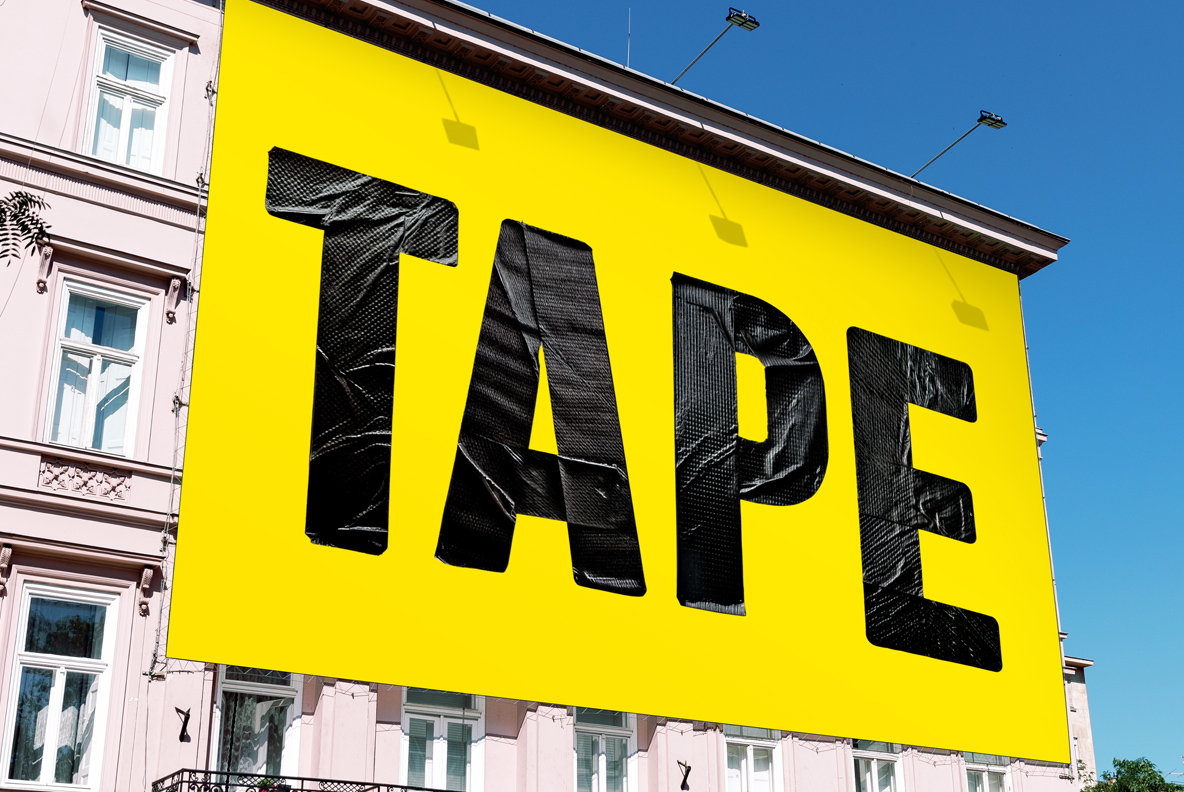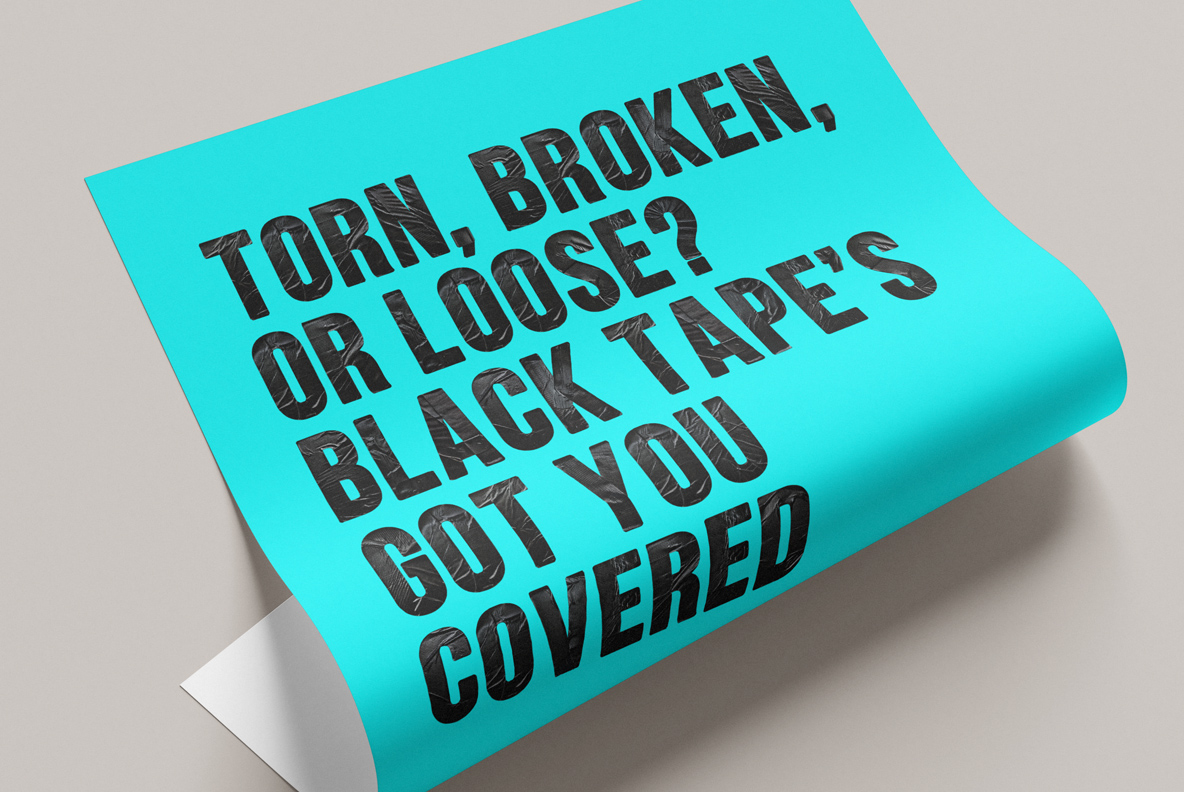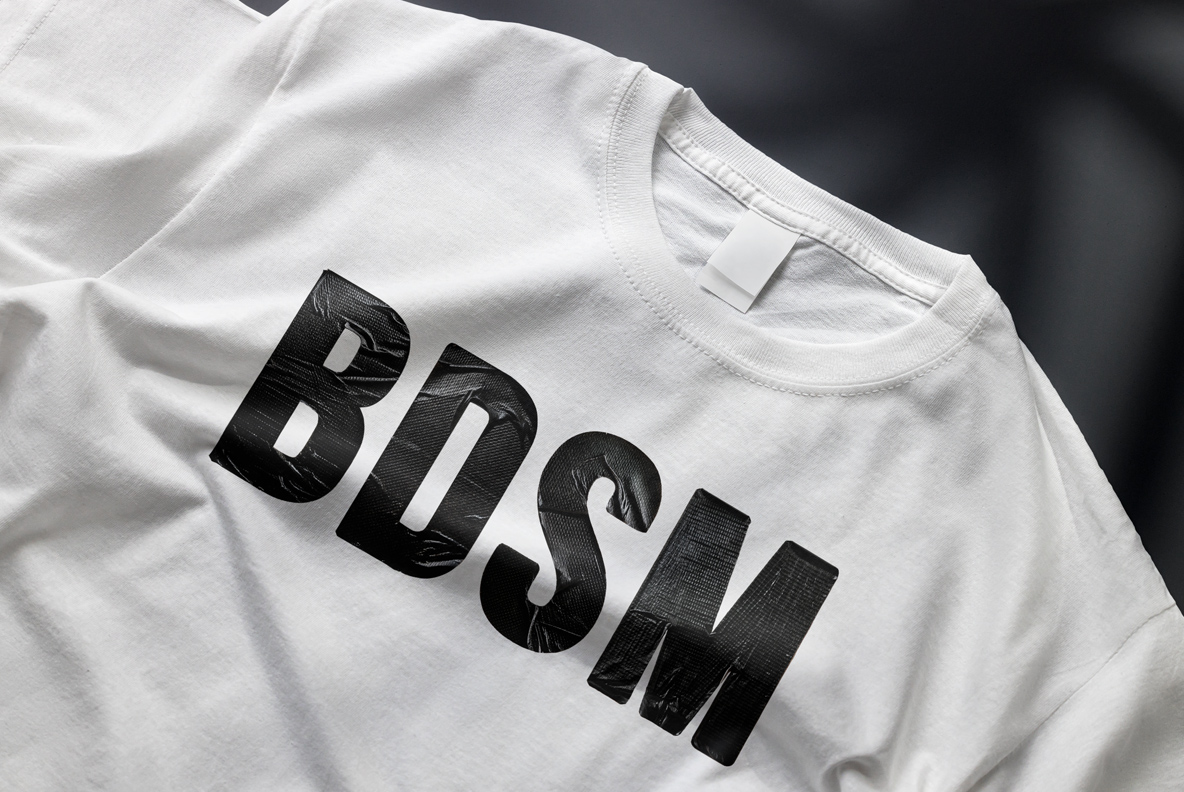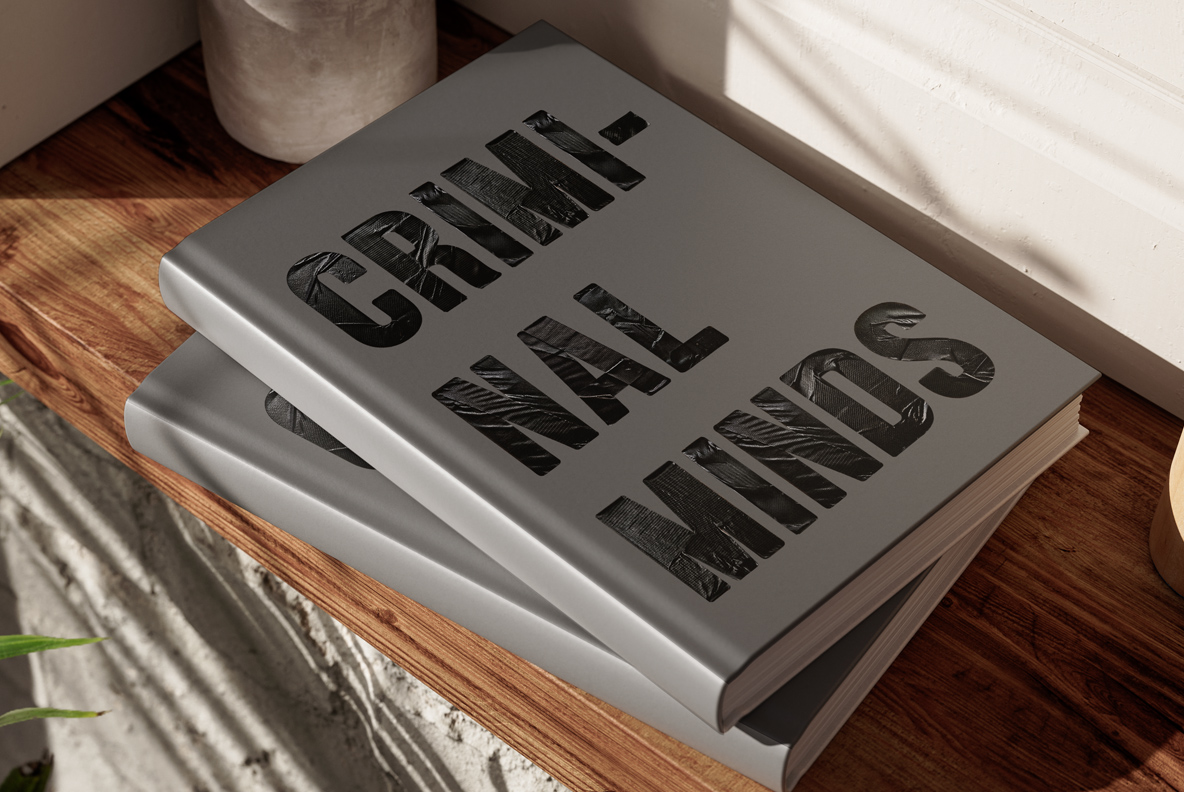
Tape Craft Font. Fix Your Designs with the Power of Tape Typography
Tape has never looked this cool! Tape Craft Font is a bold, black duct tape typography masterpiece—strong, adhesive, and built to last. Each letter is carefully “wrapped” in wrinkled, waterproof tape, giving it that perfect industrial-meets-DIY vibe. With frayed edges and rugged creases, this tape-inspired font screams repair, sealing, and unstoppable creativity. Who knew a tape alphabet could stick this well… to design?
A Font So Strong, Even Duct Tape is Impressed
Tape Craft Font is the ultimate tribute to that everyday hero of the toolbox—black duct tape. This tape-inspired font embodies the rough, rugged, and ridiculously versatile nature of adhesive magic. Each letter is meticulously constructed from black duct tape, with a slightly wrinkled texture, visible creases, and authentic overlaps where the strips meet. It’s as if a determined DIY enthusiast ran out of patience with traditional typography and decided, “You know what? Let’s just tape it.”
There’s something undeniably industrial about this tape font. It carries the essence of emergency fixes, last-minute repairs, and a MacGyver-level approach to lettering. The slightly frayed and torn edges give it that raw, street-art aesthetic—perfect for projects that need a bit of grit and attitude. Whether it’s for a grunge poster, a bold statement piece, or a design that screams “I fix things with my bare hands,” this tape lettering style is here to stick around.
Black duct tape alphabet
Bold, Black, and Impossible to Ignore!
The durability of black duct tape is legendary, and this font carries that same unbreakable spirit. It’s waterproof, weatherproof, and most importantly, boredom-proof. Need a typeface that looks like it was built to survive an apocalypse? Tape Craft Font is the answer. It doesn’t just spell out words—it yells them, in bold, adhesive, and no-nonsense fashion.
Black tape fixes everything—until it doesn’t.
Black duct tape alphabet
Tape-Inspired Letters with Industrial Strength
This quote, while simple, captures the universal truth about black duct tape. It’s the go-to tool for repairs, sealing, wrapping, and, apparently, typography. If something is broken, slap some tape on it. If your design feels too clean and polished, slap some Tape Craft Font on it. It brings an instant edge to any project, making even the most ordinary text look like it was pieced together in the heat of a creative moment.
With a DIY spirit, Tape Craft Font is both rebellious and resourceful. It’s for designers who want to say, “I don’t follow the rules, I tape over them.” The texture is alive with imperfection—creases catching the light, slight folds where the tape stretches, and the undeniable feeling that each letter has a story to tell. Did someone use these letters to patch up a broken sign? Did they quickly slap together a ransom note (for artistic purposes, of course)? The possibilities are endless, and the aesthetic is undeniably bold.
Black duct tape alphabet
Black Tape, Big Statements, Zero Compromise
Whether you’re creating a grunge-inspired gig poster, a branding piece that screams urban energy, or a title that looks like it’s been hastily assembled in a warehouse, Tape Craft Font has you covered. It’s typography that doesn’t just sit there—it sticks, seals, and makes a statement. And just like real black duct tape, once you start using it, you’ll wonder how you ever lived without it.